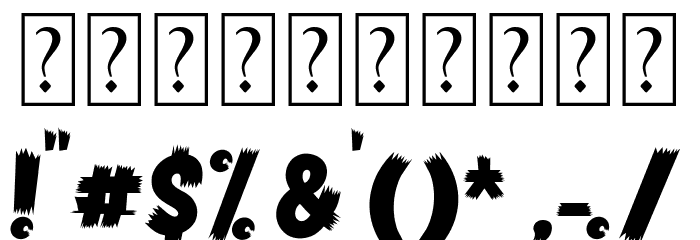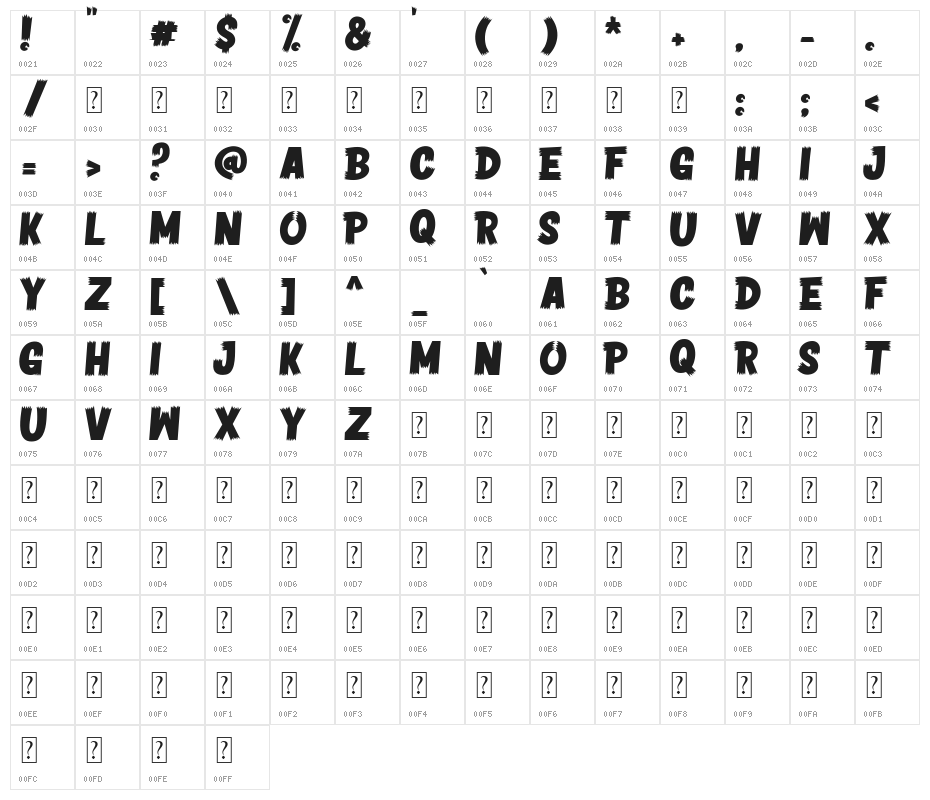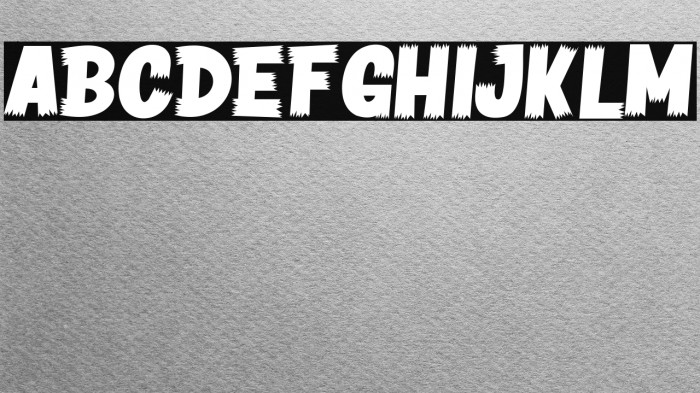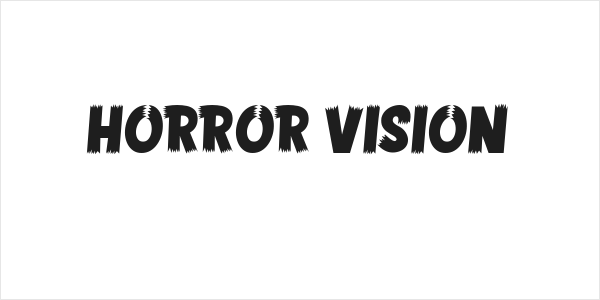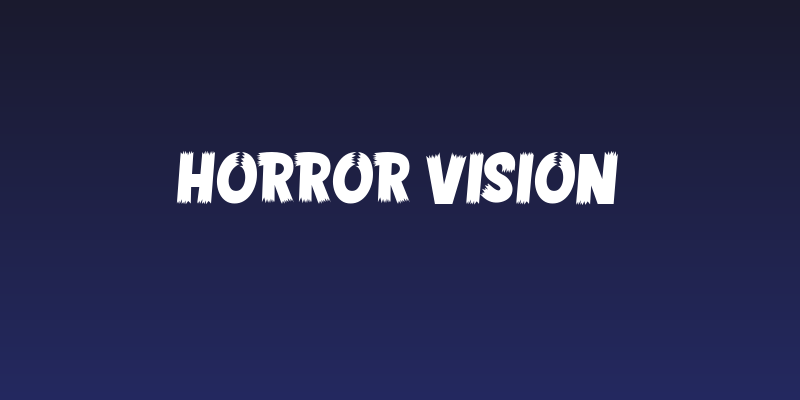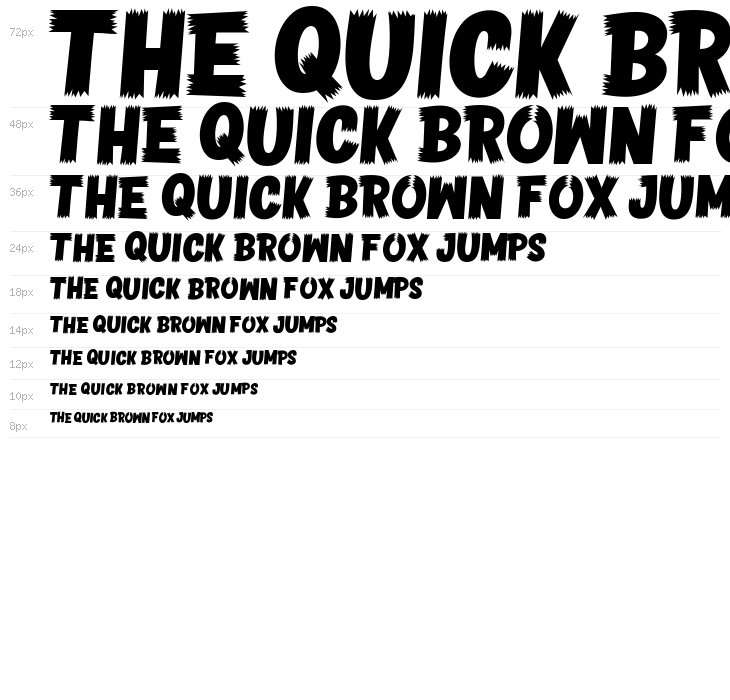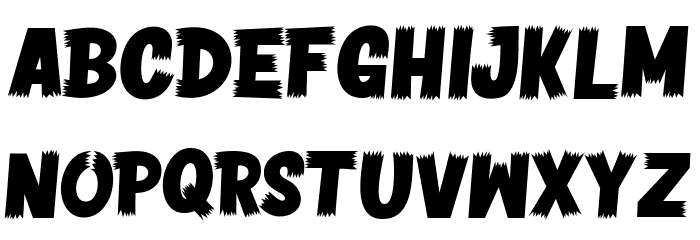
HORROR VISION Font
HORROR VISION Description
This font features a bold and jagged design, reminiscent of classic horror movie posters. Each character is crafted with sharp, irregular edges that give it a dynamic and unsettling appearance. The uppercase and lowercase letters maintain a consistent style, with exaggerated angles and a slightly condensed form. The numerals and special characters follow the same aesthetic, ensuring a cohesive look across all text. This font's unique style makes it ideal for creating a sense of tension and excitement, perfect for Halloween-themed projects or any design requiring a dramatic flair.
| Proposed Projects | Perfect for Halloween invitations, horror movie posters, themed event flyers, and spooky merchandise designs. |